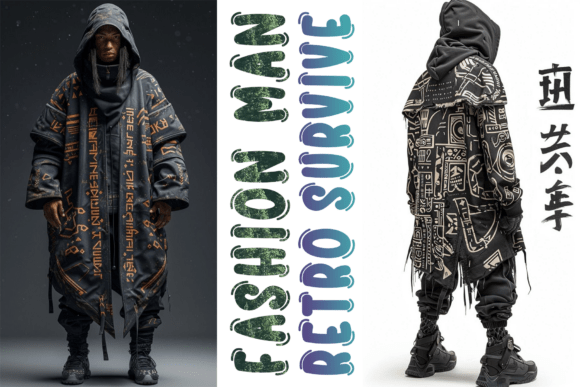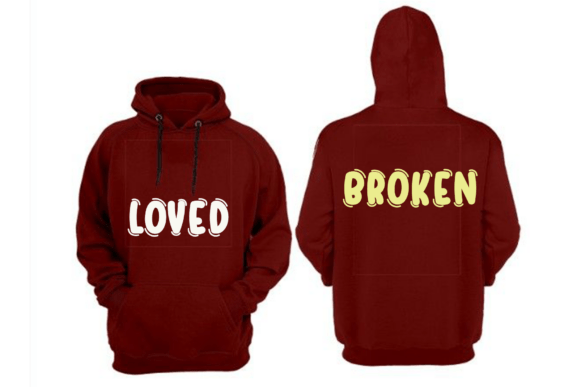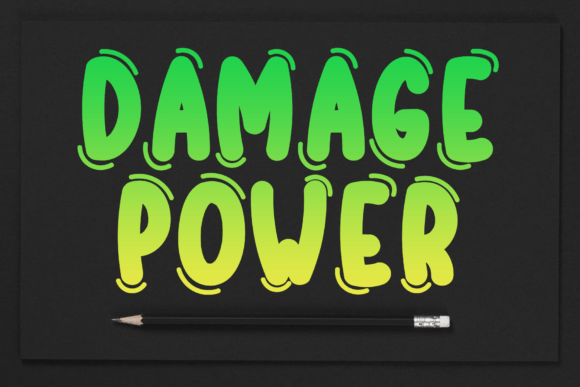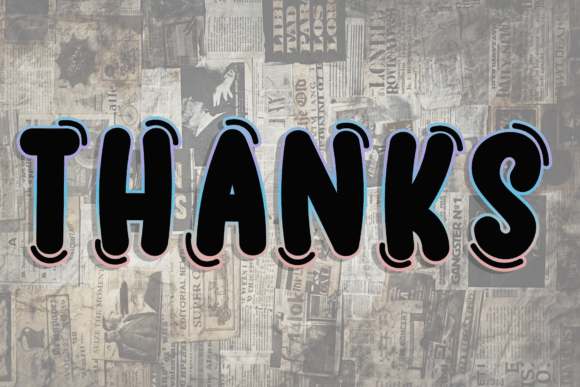
Do you remember the first time you saw a beautifully handwritten invitation that made you smile? For many of us, it’s a moment that sparks our creativity and sets the tone for a special occasion. Whether it’s a wedding, a birthday, or a holiday celebration, the right font can elevate the entire atmosphere and make it feel more personal.
That’s where the Bunting Font comes in – a sweet and friendly handwritten font that’s perfect for adding a touch of whimsy to your designs. With its fresh and casual feel, this font is ideal for writing wedding invitations, cards, or any other design that needs a lovely touch. As a designer, you know how valuable it is to have a versatile font like Bunting that can add a personal touch to your projects.
Bunting Font Key Features
- Unique Characteristics: Hand-drawn, whimsical, and playful style with intricate details and textures
- Kerning and Ligatures: Advanced kerning and ligature support for precise typography and improved readability
Bunting Font Review
I recently had the chance to work with the Bunting font, and overall, I was pleased with the results. ✨ Here are a few things that worked well for me:
- The Bunting font has a playful, whimsical feel that’s perfect for projects that need a touch of fun and personality.
- The font is highly customizable, with a wide range of weights and styles to choose from.
- The font is also incredibly legible, even at small sizes.
However, I did encounter a few limitations that might impact your design decisions:
- The Bunting font can be a bit too ornate for some projects, which may make it difficult to read or understand at a glance. ⚠️
- The font’s many styles and weights can be overwhelming to manage, especially if you’re working on a tight deadline.
Overall, I think the Bunting font is a great choice for projects that need a touch of whimsy and personality. While it may have some limitations, the benefits far outweigh the drawbacks. If you’re looking for a font that’s a bit unconventional but still highly effective, the Bunting font is definitely worth considering.
Use Bunting Font for creating playful and whimsical designs, such as invitations, party decorations, and children’s book illustrations. Experiment with different font sizes and colors to create a unique and eye-catching design.